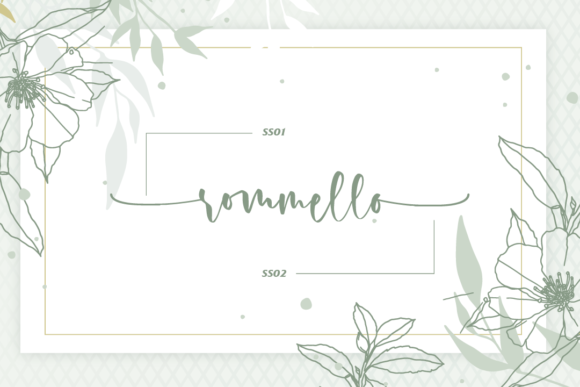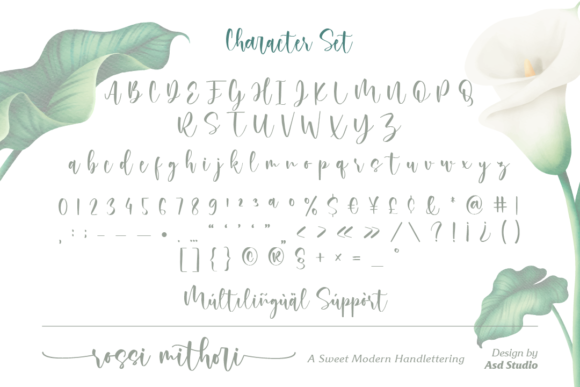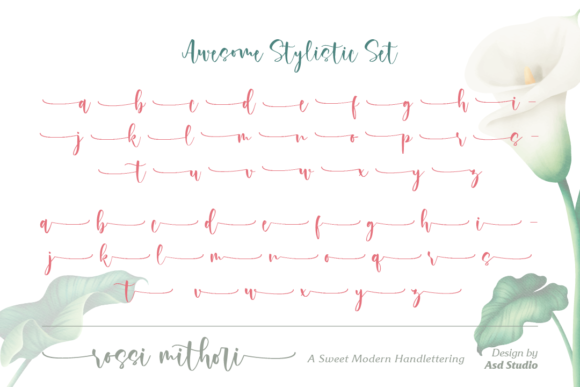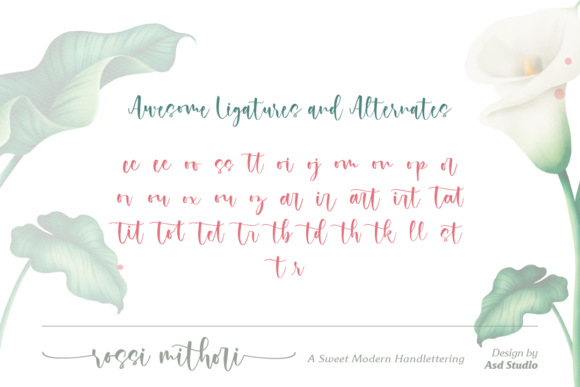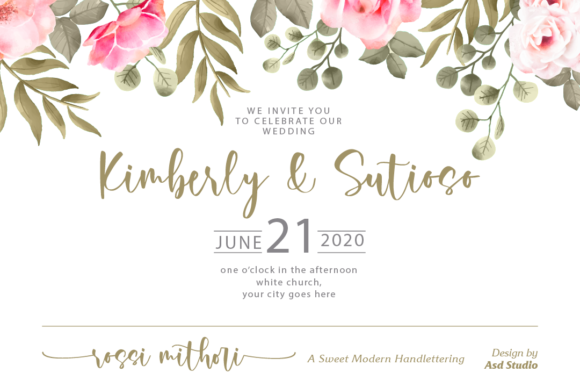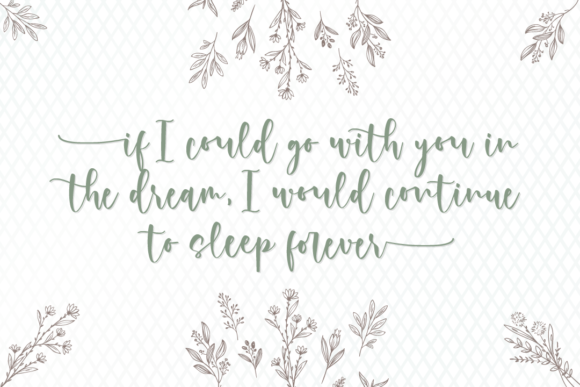
Introduction to Rossi Mithori Font
Rossi Mithori is a beautiful combination of timeless elegance and authentic calligraphy.
It features an incredibly classic style, while still keeping a friendly feel Get inspired by its authentic feel and use it to create gorgeous wedding invitations, beautiful stationary art, eye-catching social media posts, and cute greeting cards.
Key Features of Rossi Mithori Font
Why Choose Rossi Mithori Font?